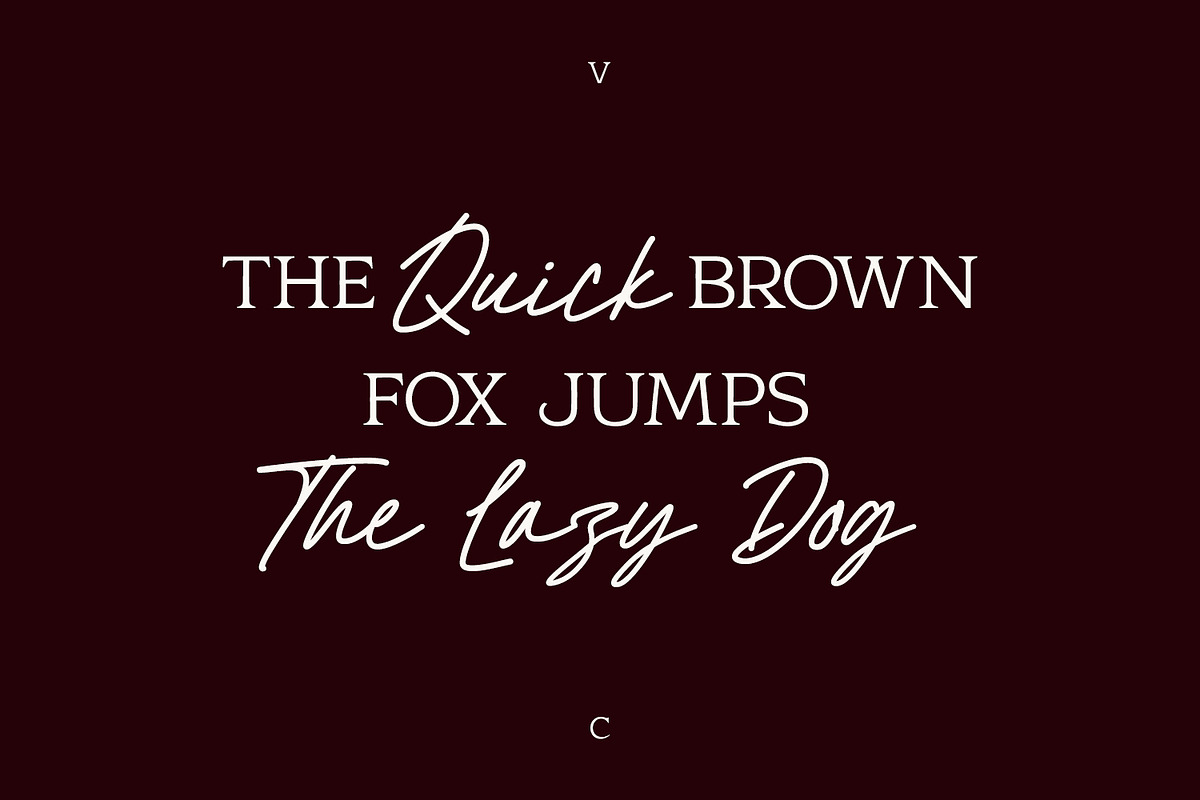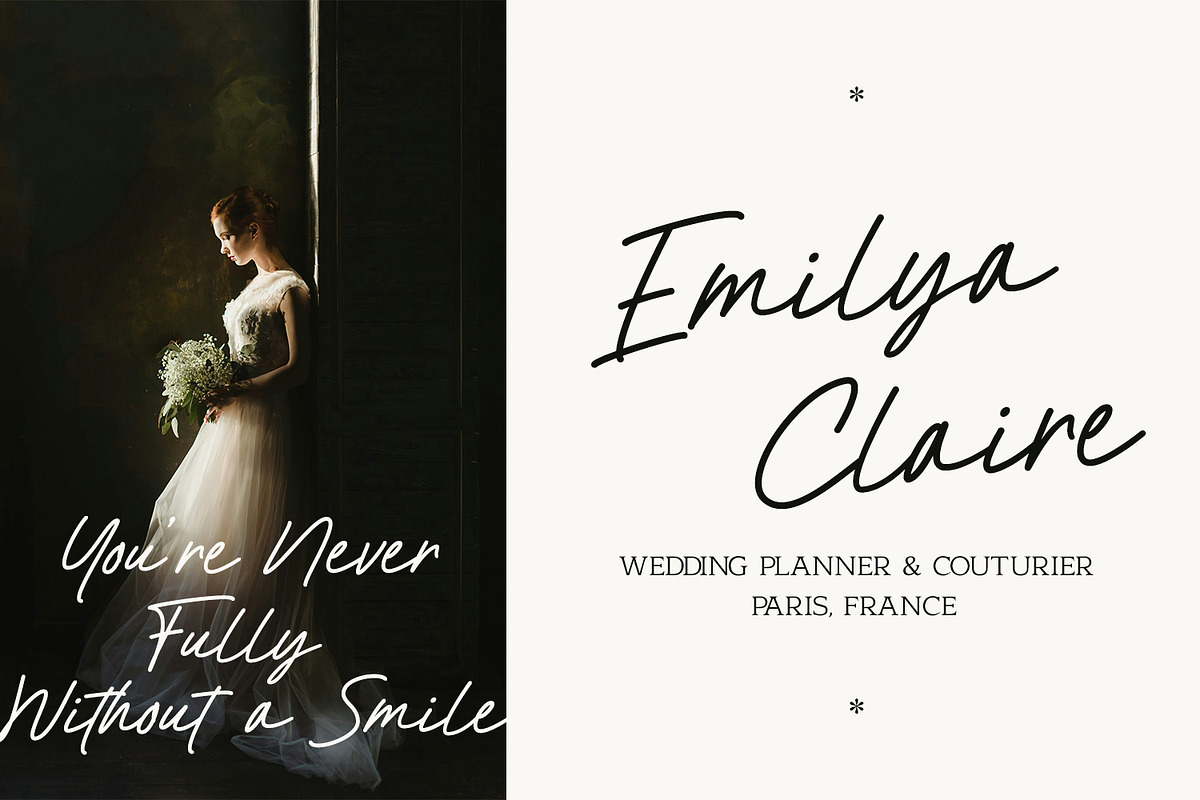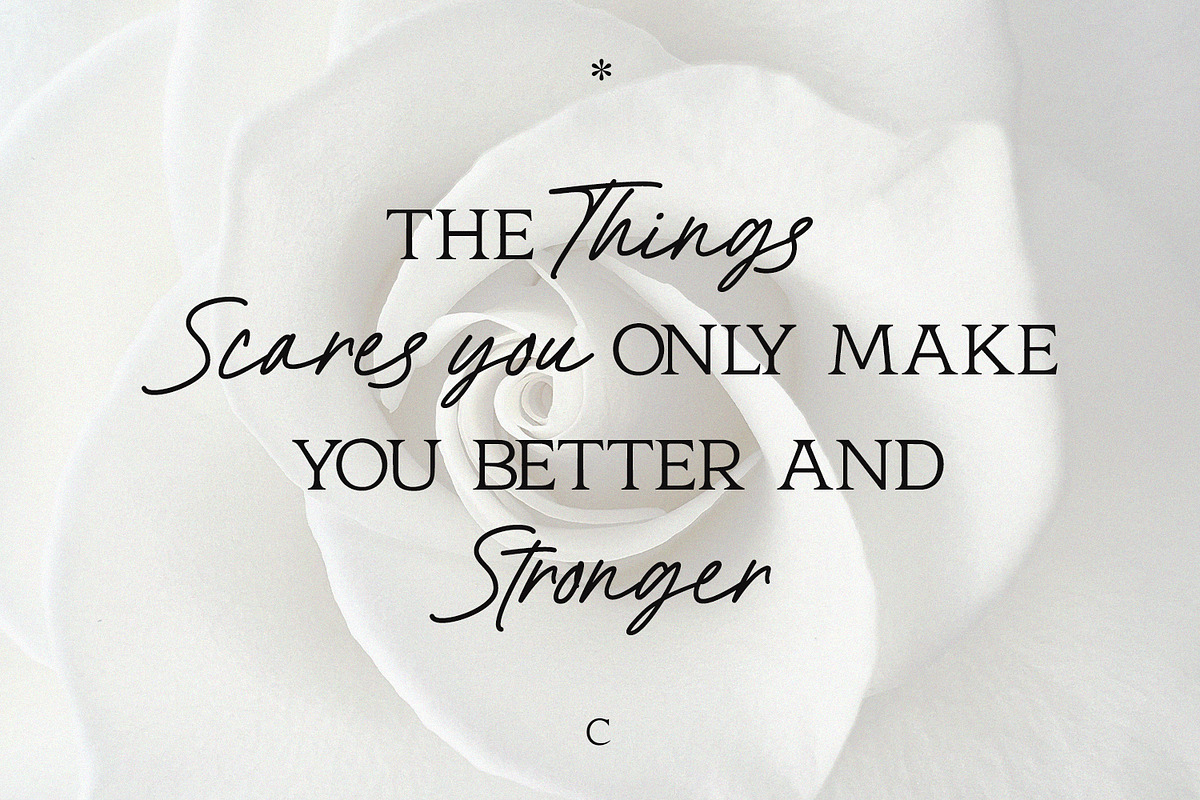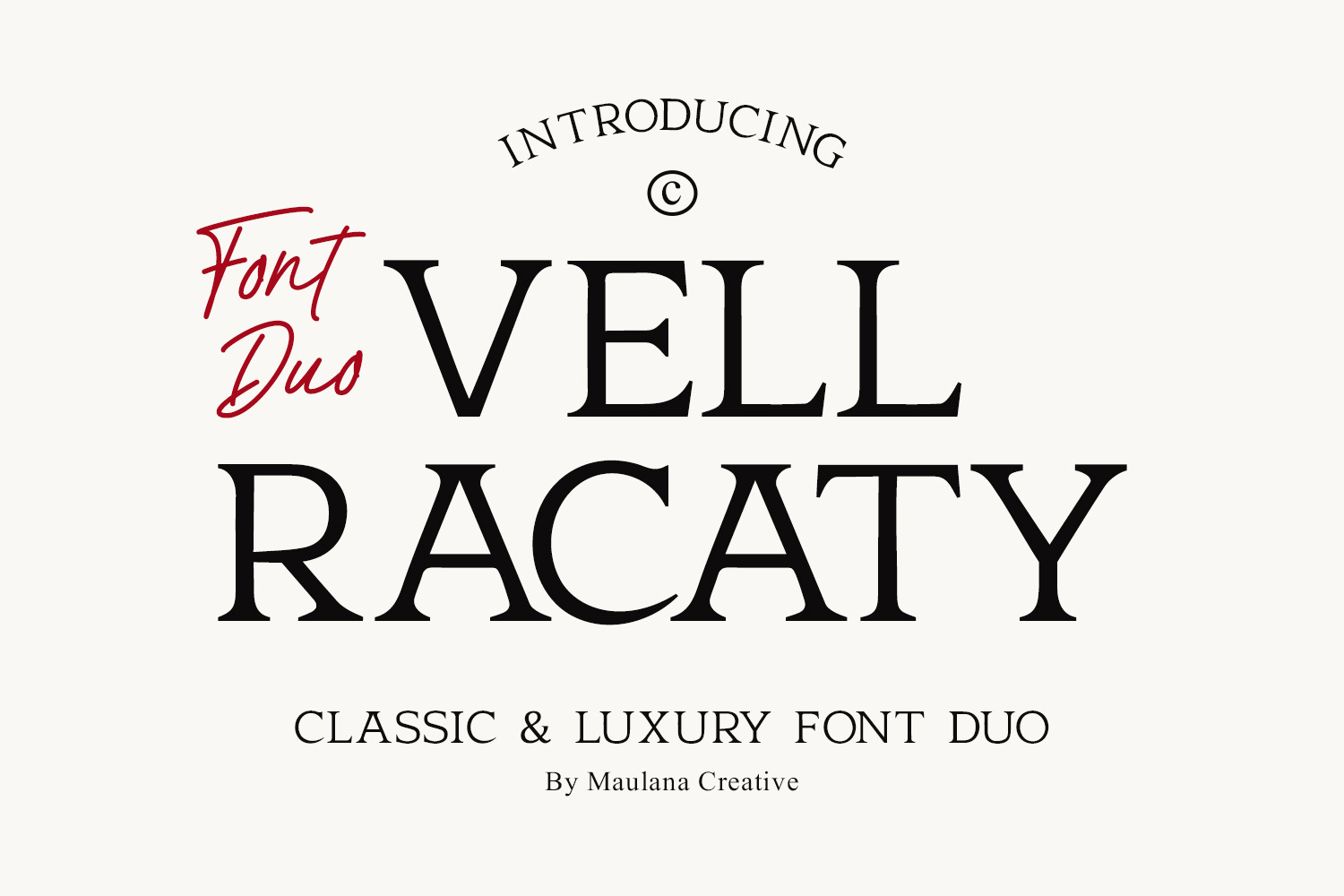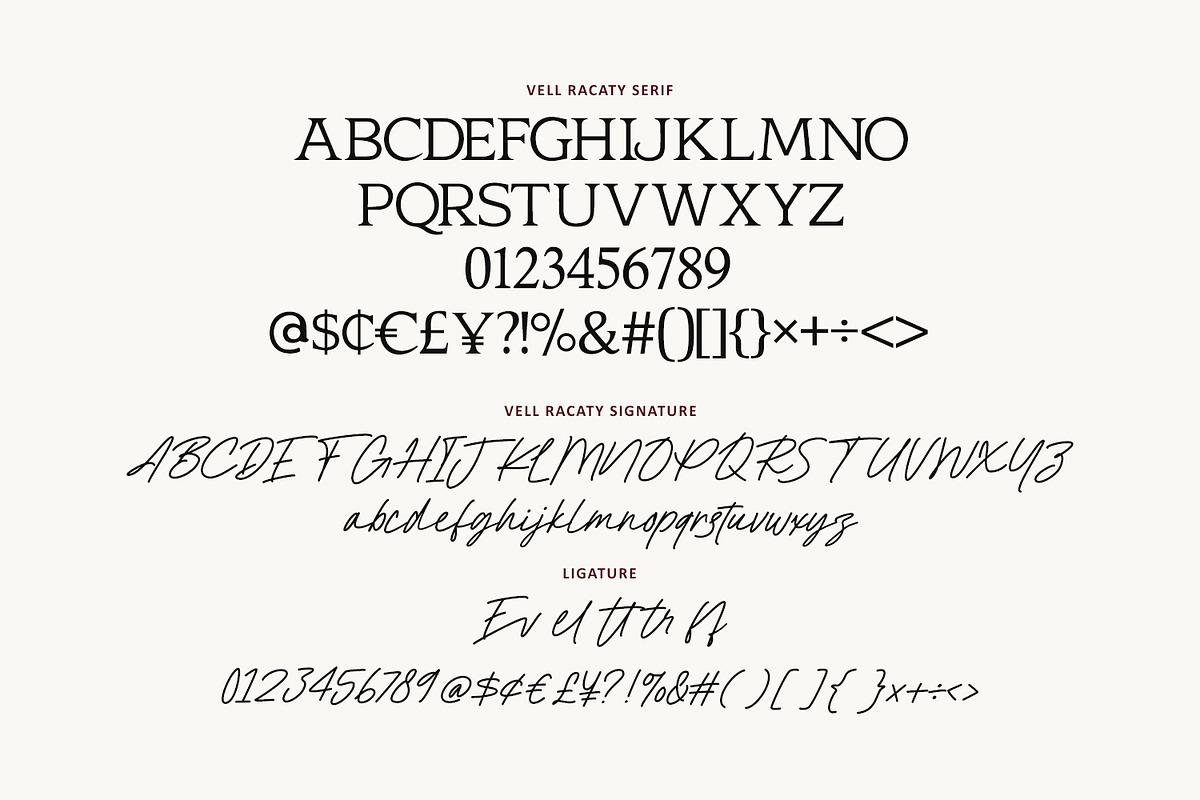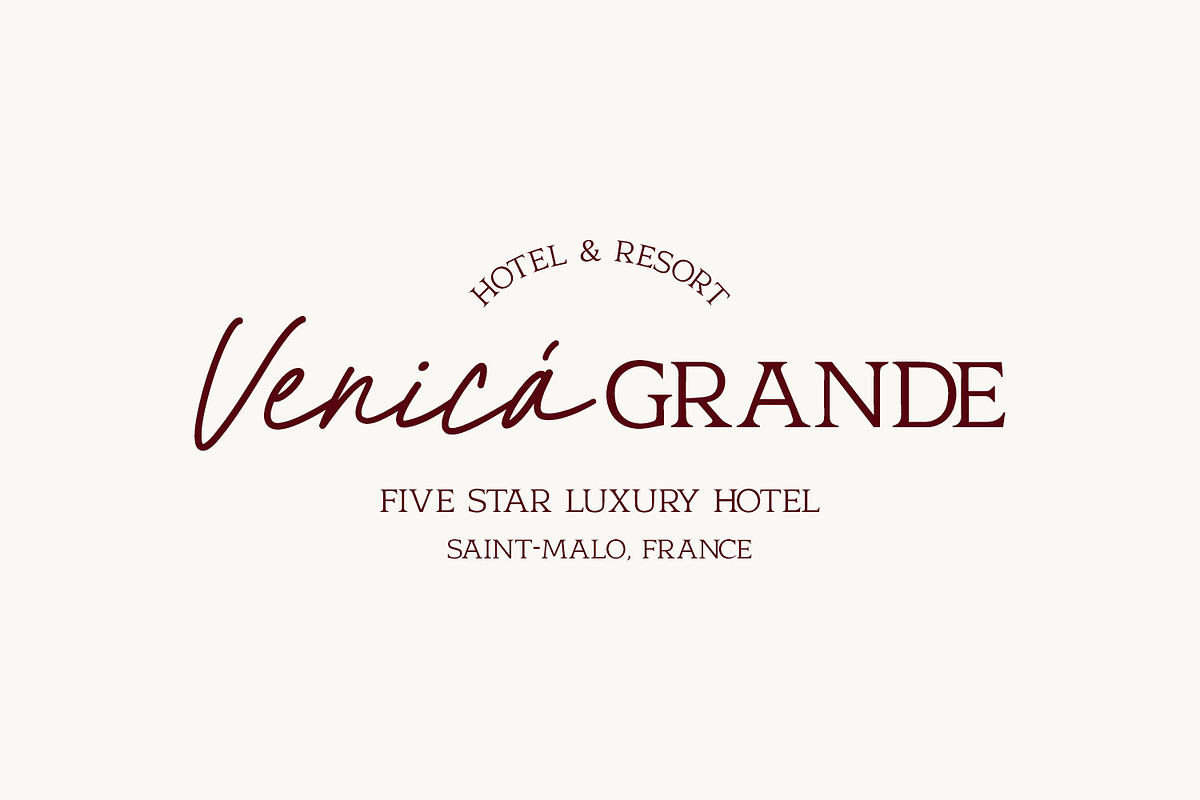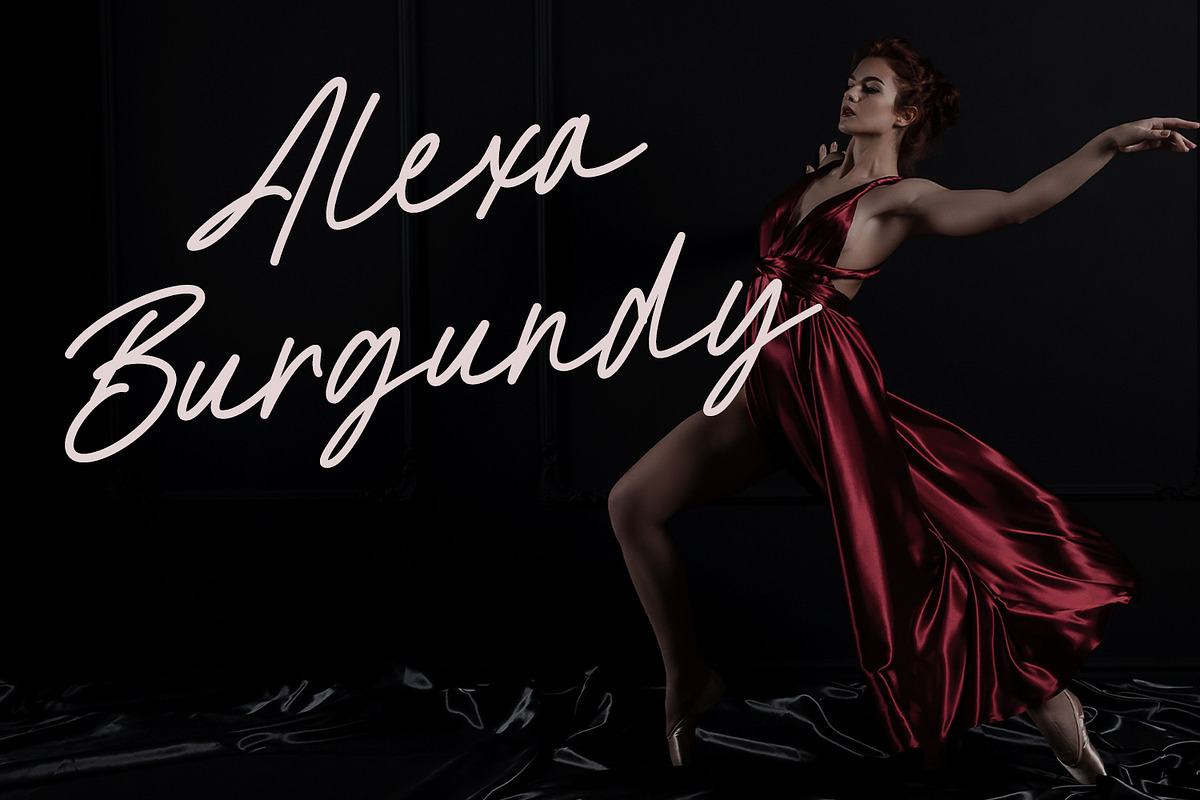
Vell Racaty Classic Luxury Font Duo
Vell Racaty is a sophisticated font duo that masterfully blends a timeless, high-contrast Serif with a modern, hand-drawn Signature script. This pairing is designed to evoke an aura of elegance and high-end fashion. The serif typeface offers a clean, regal look for headlines, while the signature script adds a personal, organic touch that mimics natural handwriting.
Perfect for luxury branding, wedding invitations, high-fashion editorials, logos, and boutique social media content, Vell Racaty provides a balanced aesthetic of professional authority and artistic flair. Whether you are designing for a five-star hotel or a personalized fashion label, this duo ensures your typography remains both readable and remarkably stylish.
- Vell Racaty signature include lowercase and uppercase.
- Vell Racaty serif include uppercase.
- Signature and sans include numbers, punctuation, and symbols.
- Signature include ligatures for a natural handwriting flow.
- Multilingual Support.